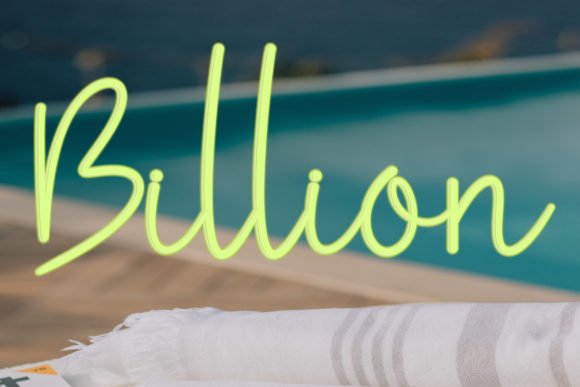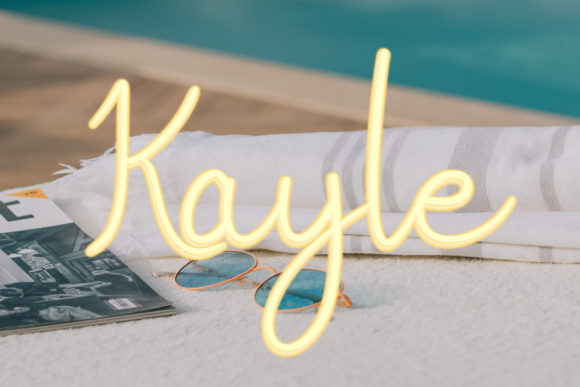
And Story Font
db-ku.com - Script & Handwritten -- And Story is a slim and stylish script font. It is perfect for product packaging, branding project, magazine covers, social media, wedding, or just used to express words above the background.